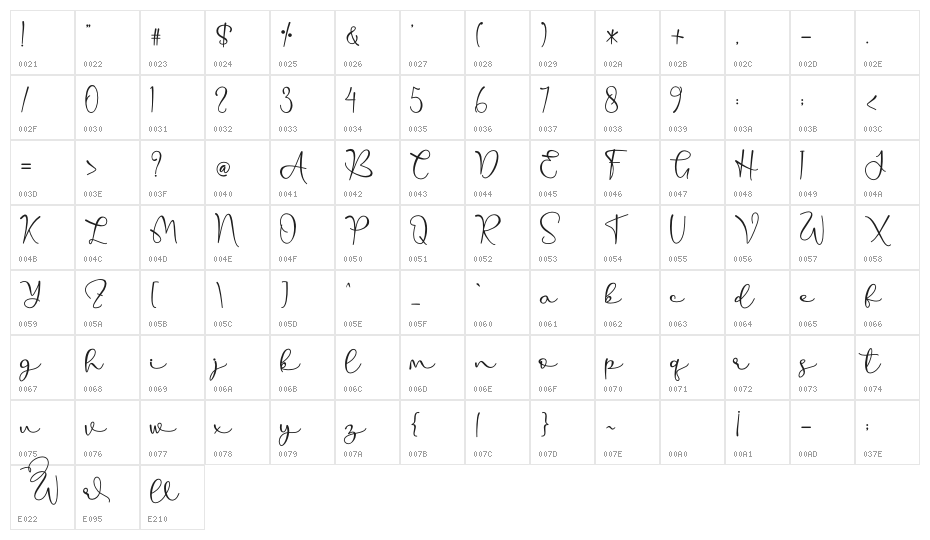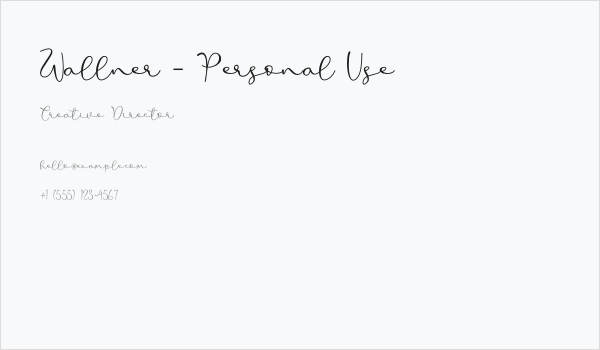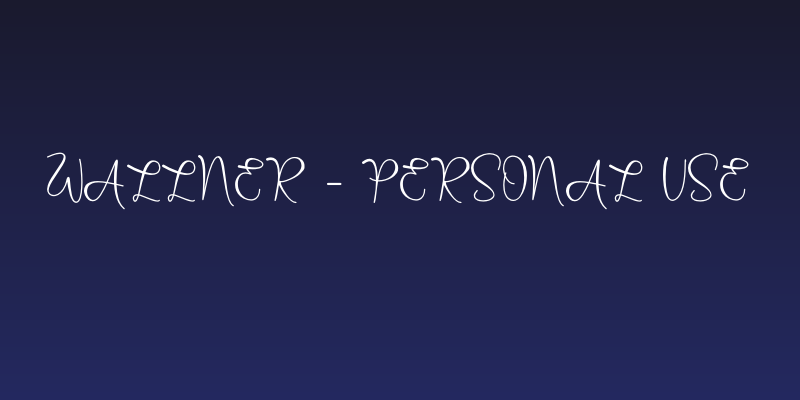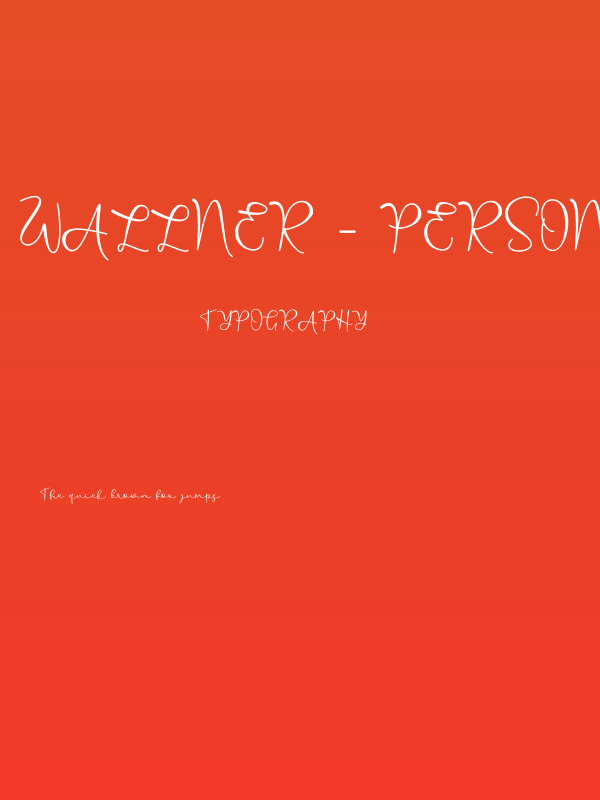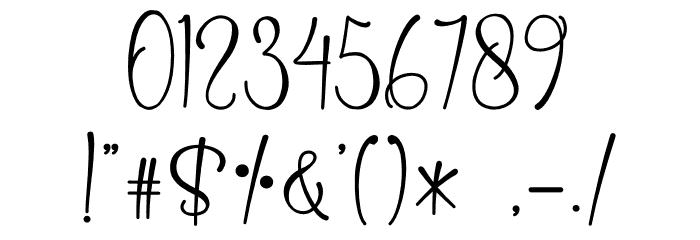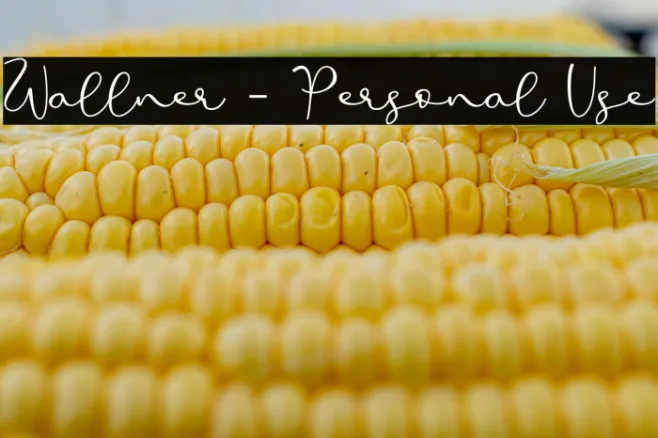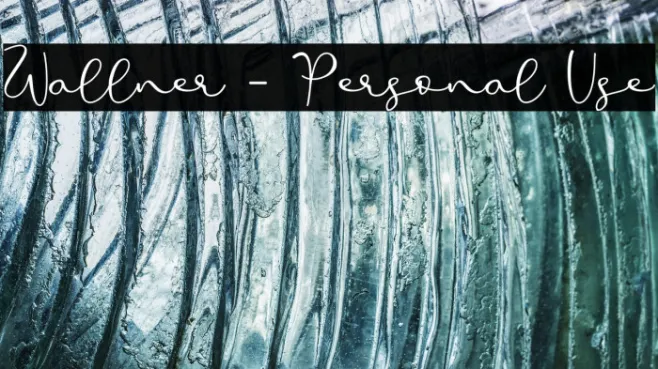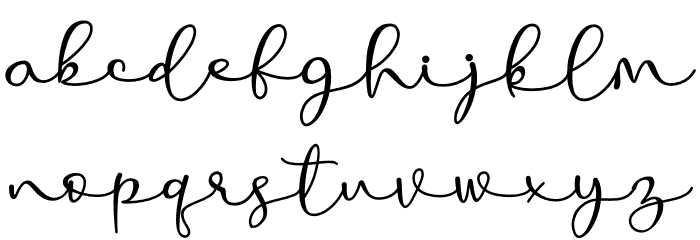
Wallner - Personal Use Font
Wallner - Personal Use Description
This font features a playful and whimsical script style with a handwritten appearance. The uppercase letters are characterized by their flowing, interconnected strokes, giving them a sense of movement and elegance. The lowercase letters maintain a consistent style, with smooth curves and loops that enhance the font's fluidity. Numbers and special characters are designed to match the overall aesthetic, ensuring a cohesive look across all text. The font's informal and friendly nature makes it suitable for creative projects that require a personal touch.
| Proposed Projects | Ideal for greeting cards, invitations, personal branding, and creative projects that require a personal, handwritten touch. |